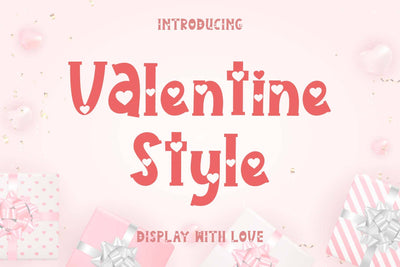
Valentine Style
"Valentine Style" is a display font decorated with heart-shaped letters and is very easy to use. This font is equipped with uppercase, lowercase, ligatures, numerals, punctuations and multilingual support. Very suitable for valentines, weddings, stickers, romantic moments, spring, winter and others.